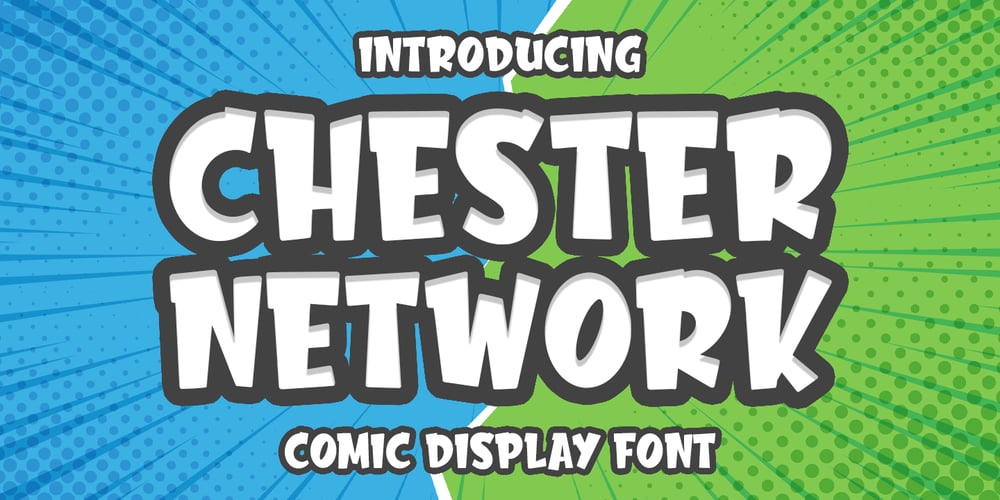
Chester Network Font Family was designed by Abo Daniel and published by Abo Daniel. Chester Network contains 1 styles and family package options. IntroducingCHESTER NETWORKThe Comic TypefaceThis font is great for apparel, branding, logo, magazine, quotes, packaging, advertising, and more, that need comic feel.It is Uppercase Font. Came with punctuations, symbols & numerals. Also support multilingual and already PUA encoded.Hope you love it.and don’t hesitate to follow our store to get the best product updates.Thank YouRegards,Abo Daniel